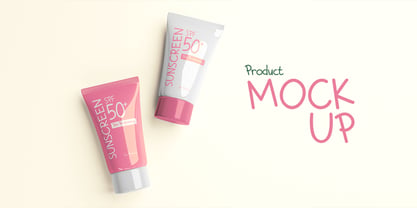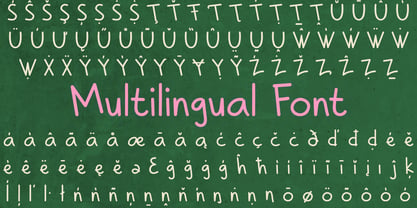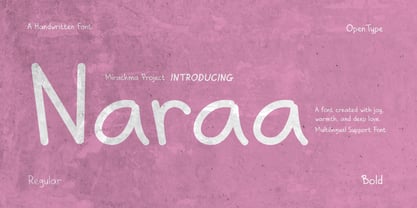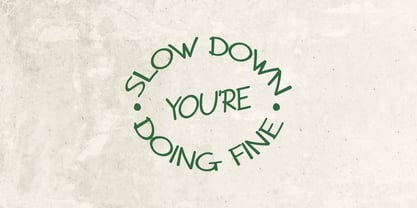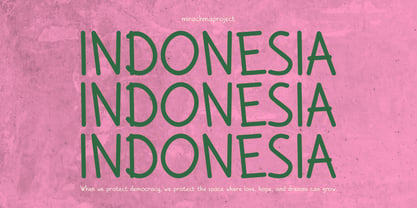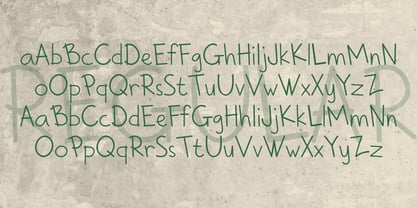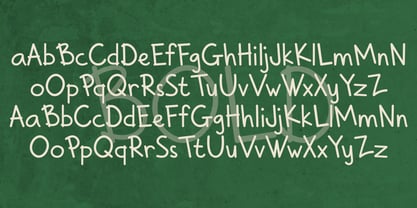
Naraa
The Naraa Font Family was designed by Mira Rachma and published by Mirachma. Naraa contains 2 styles and family package options. More about this family
Naraa Font is the first font I created. It was made with joy, warmth, and deep love. This font was created with natural handwriting. It looks relaxed and light, so it will look attractive when used for greeting cards, branding materials (coffee shops, fashion, traveling, etc.), quotes, posters, wedding invitations, and more.
• Uppercase & Lowercase Alphabets
• Numerals & Punctuation
• Multilingual Support